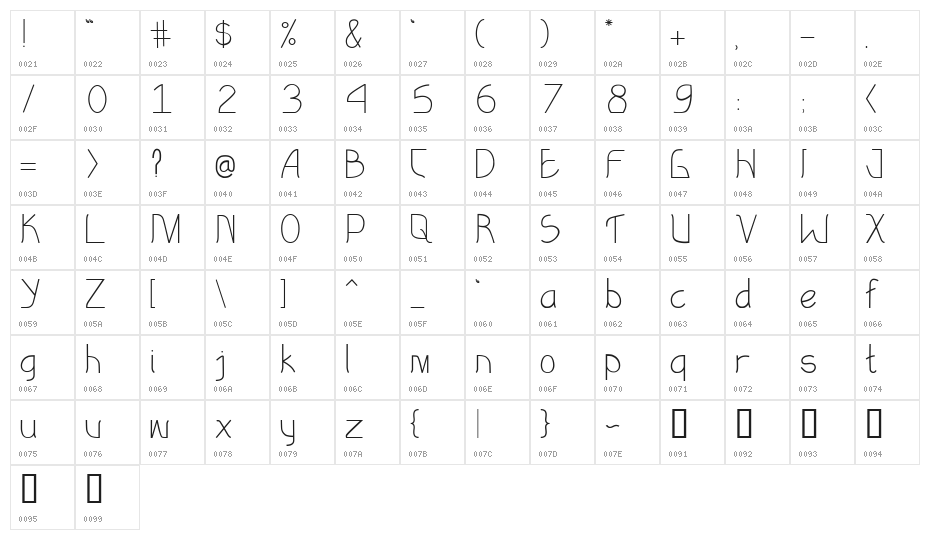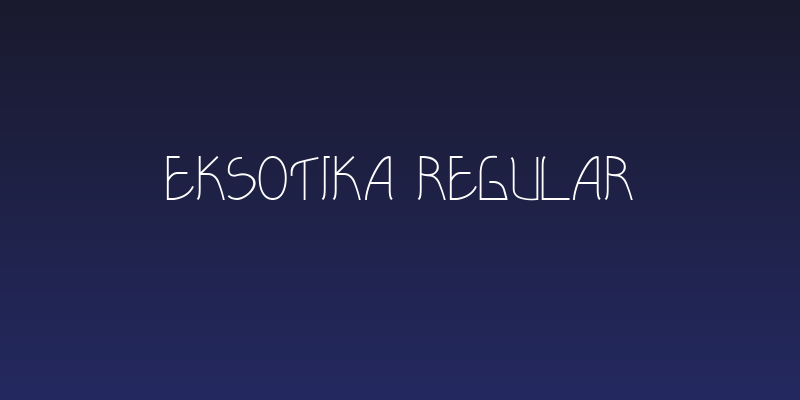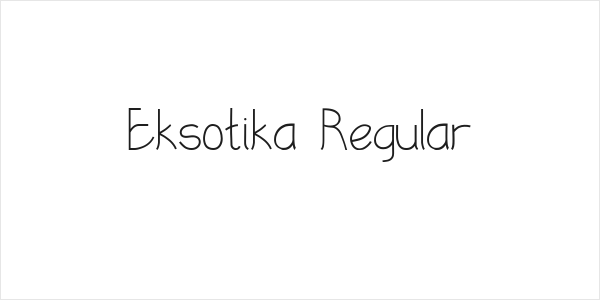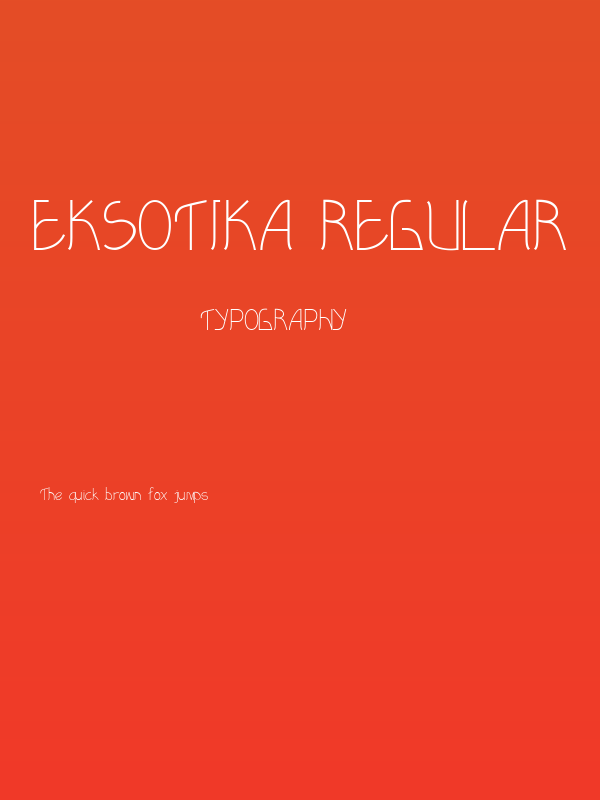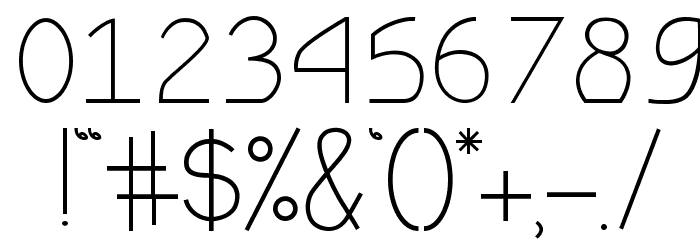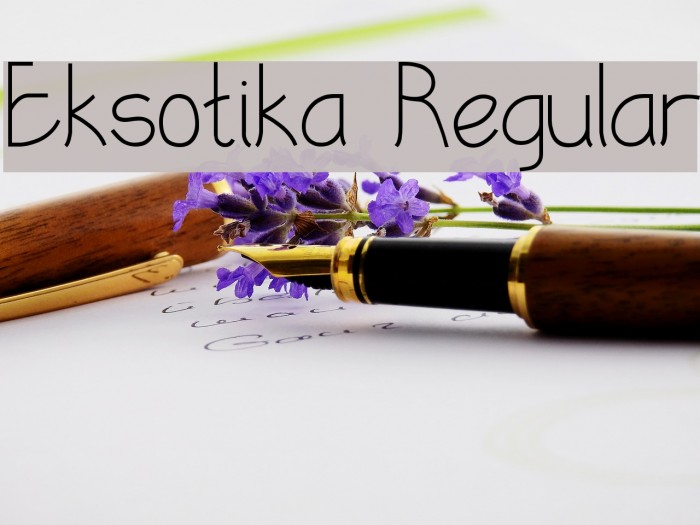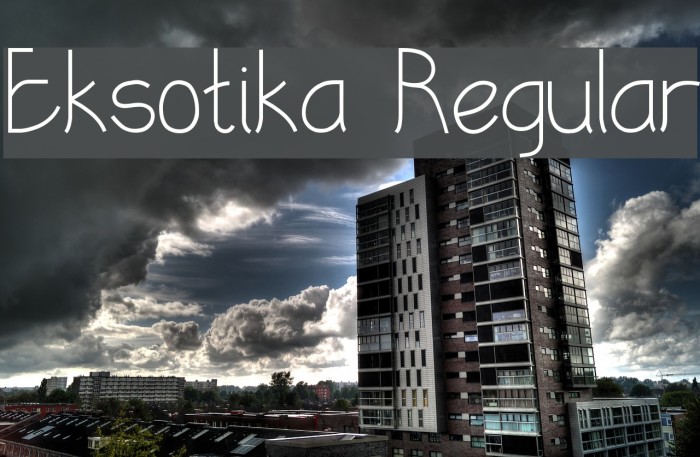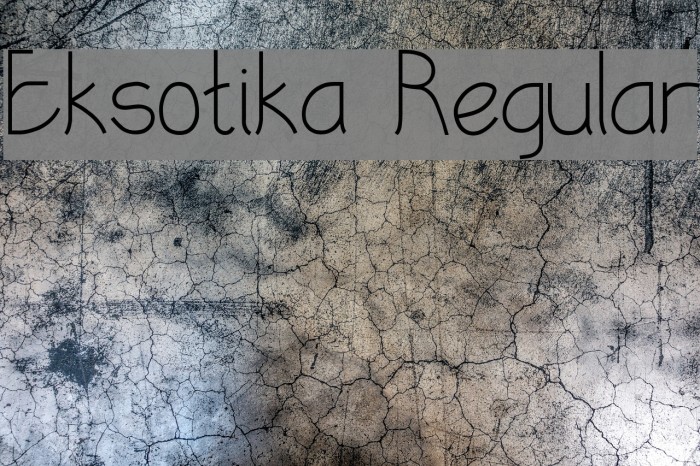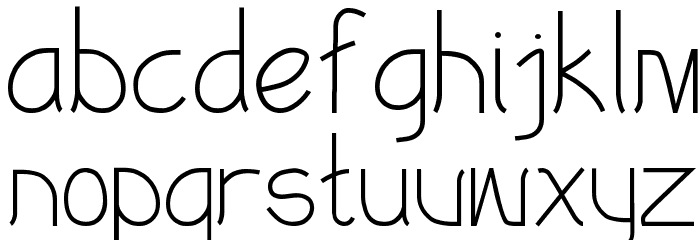
Eksotika Regular Font
This font features a unique and artistic design with a modern twist. The characters are elongated and have a distinct geometric flair, creating a sense of movement and fluidity. The uppercase letters are particularly striking, with angular lines and curves that give them a futuristic appearance. The lowercase letters maintain a consistent style, complementing the uppercase with their own subtle curves and angles. The numerals are clear and easy to read, while the special characters add a playful touch to the overall design. This font is ideal for projects that require a contemporary and creative look.
| Proposed Projects | Ideal for branding, logos, posters, and modern web design projects. |